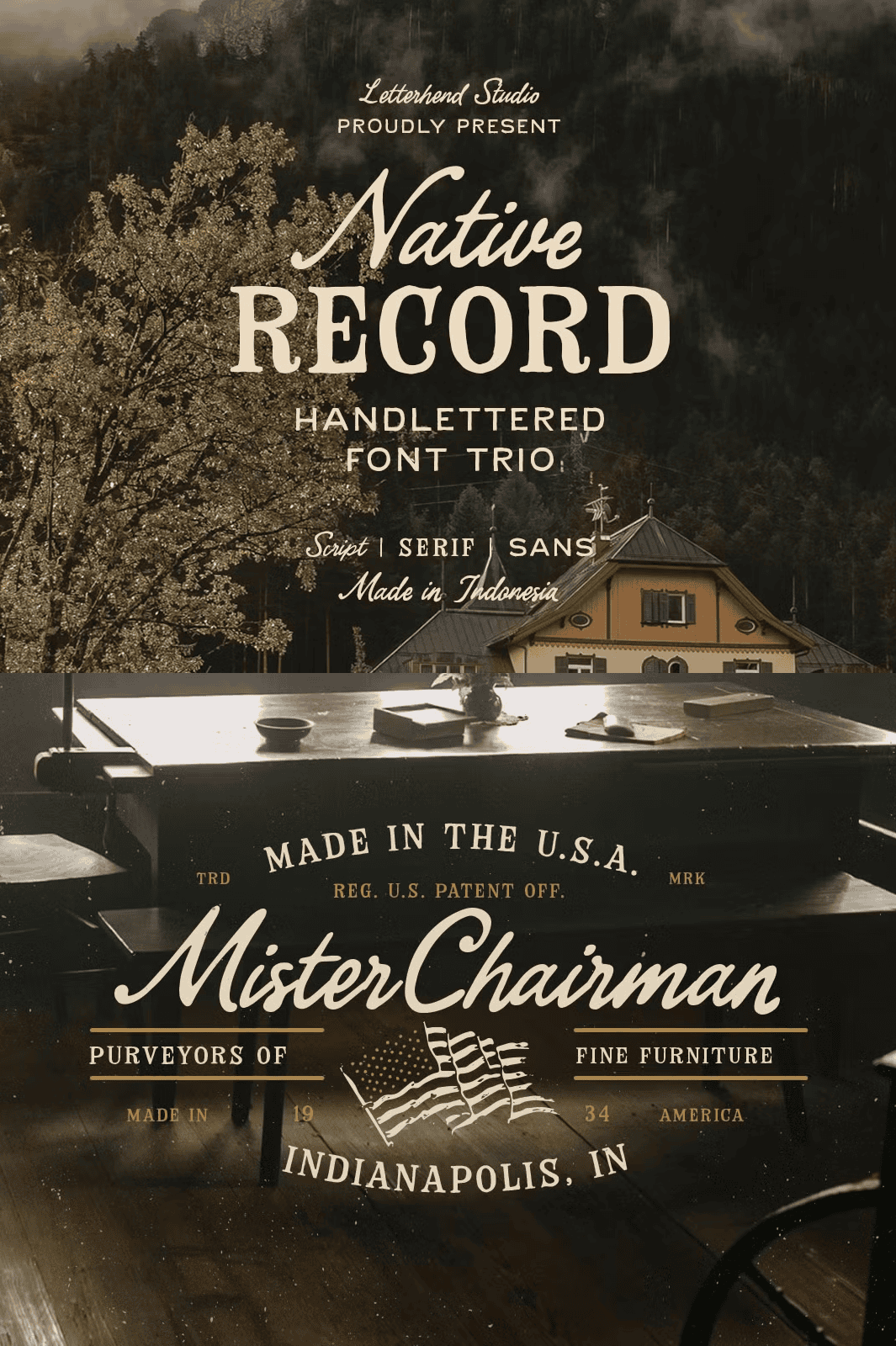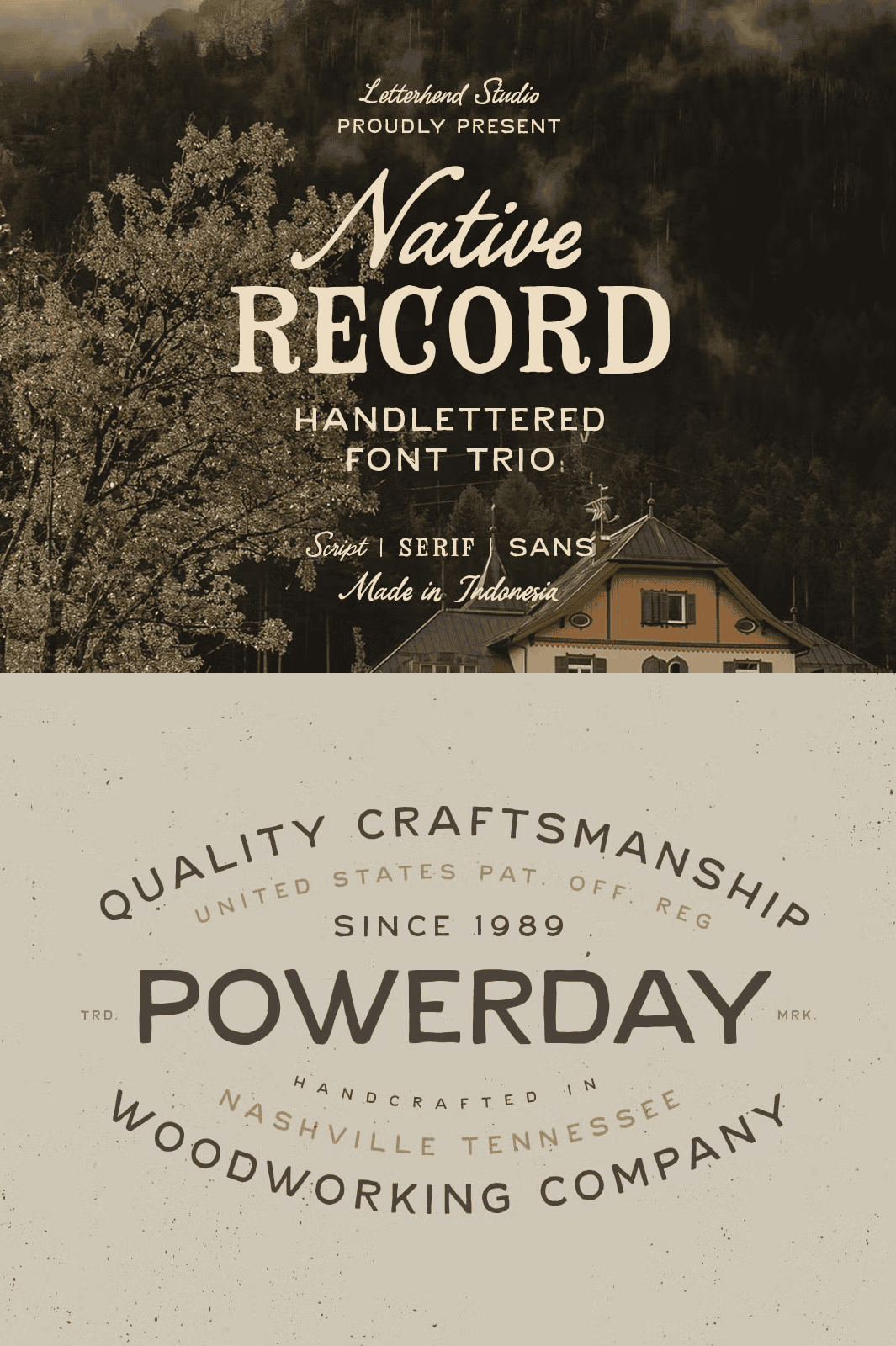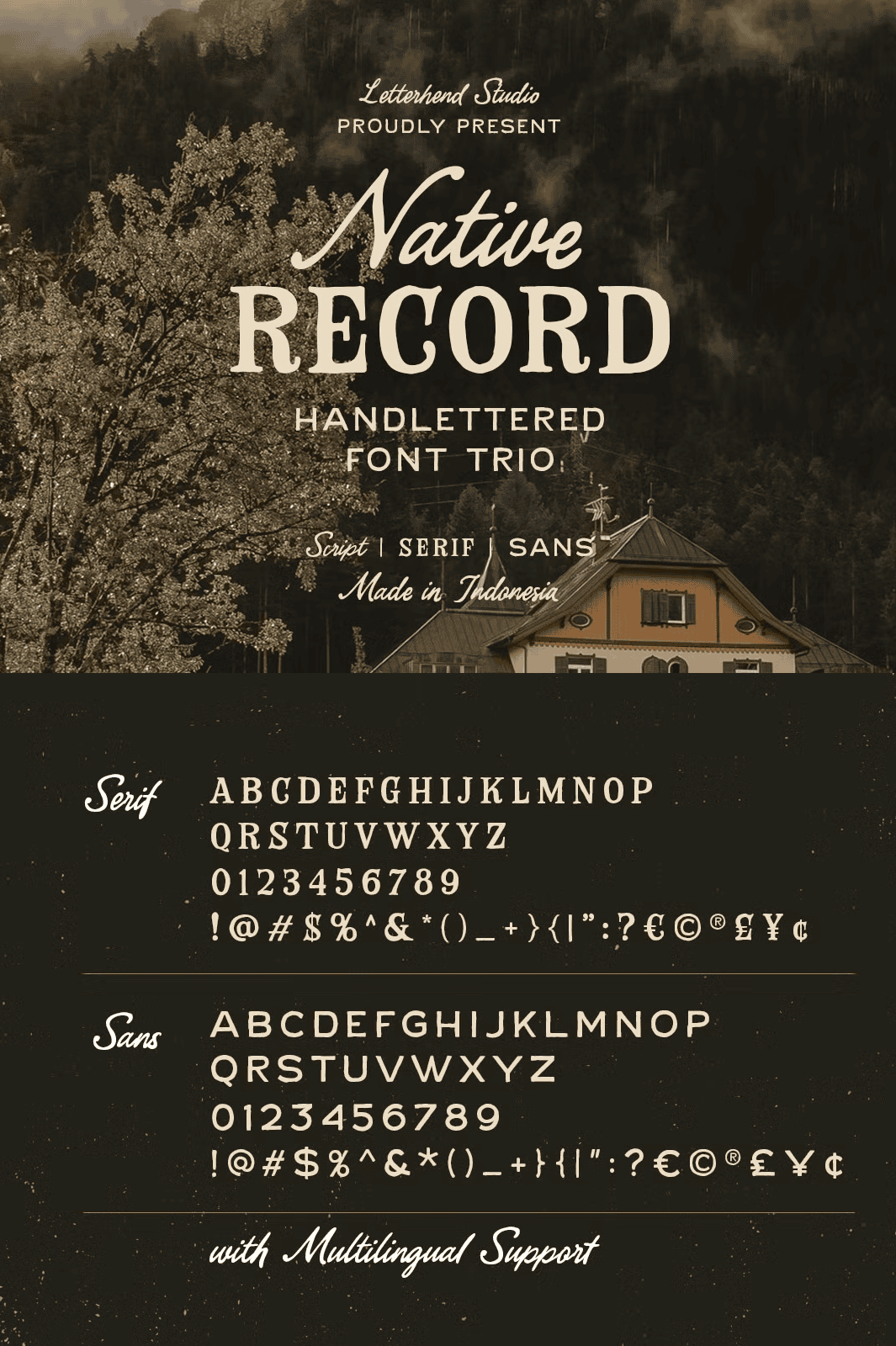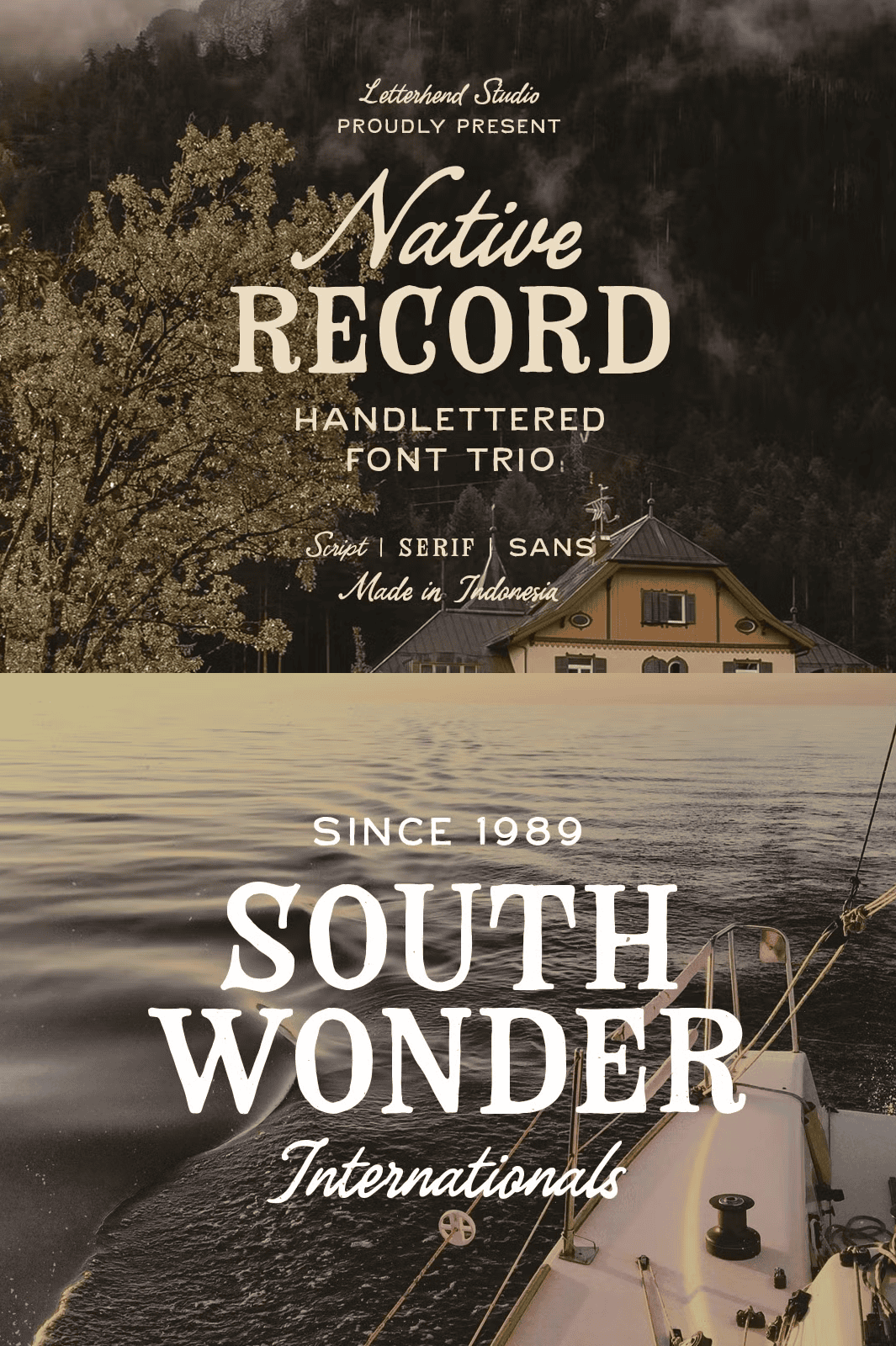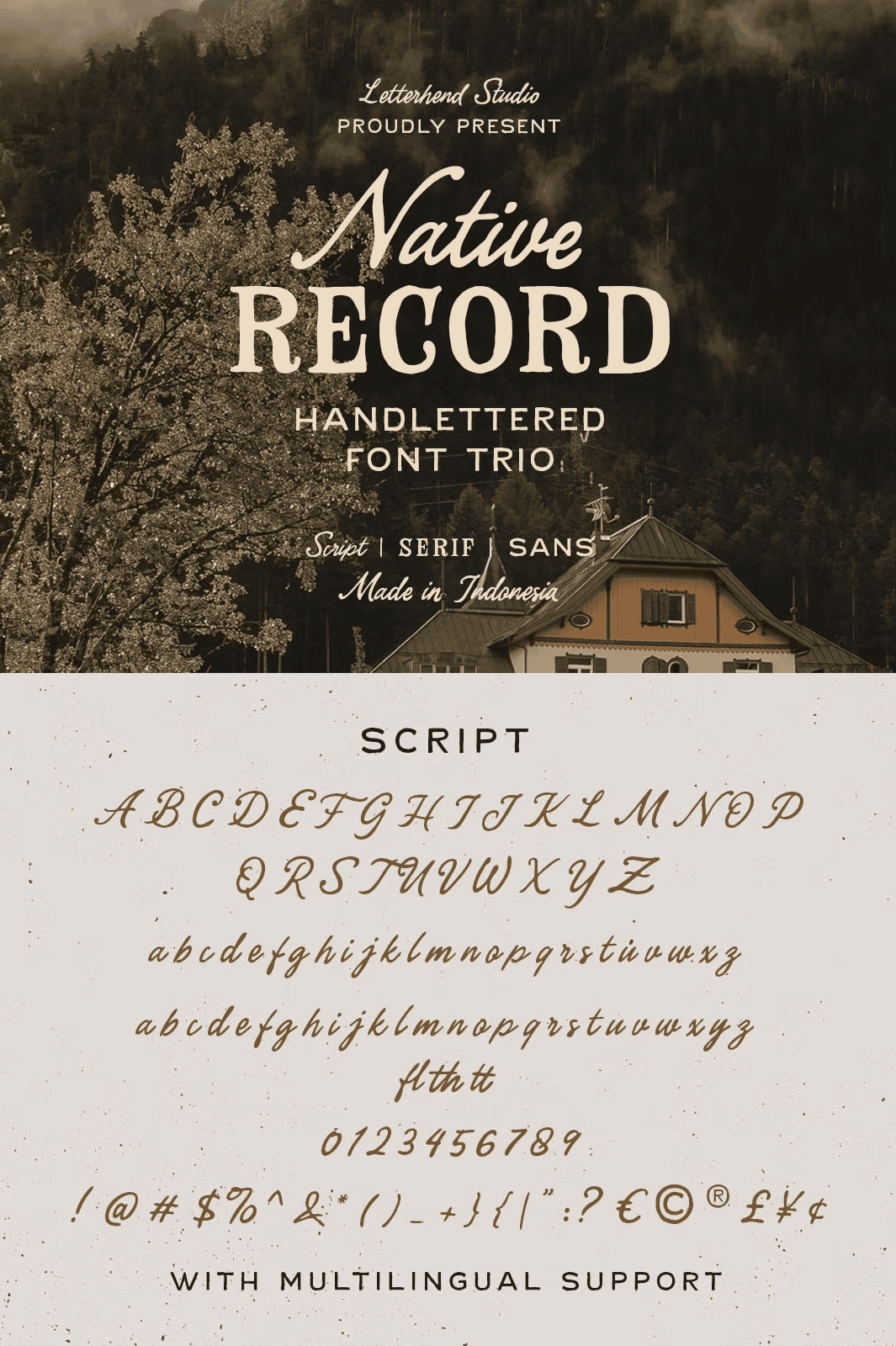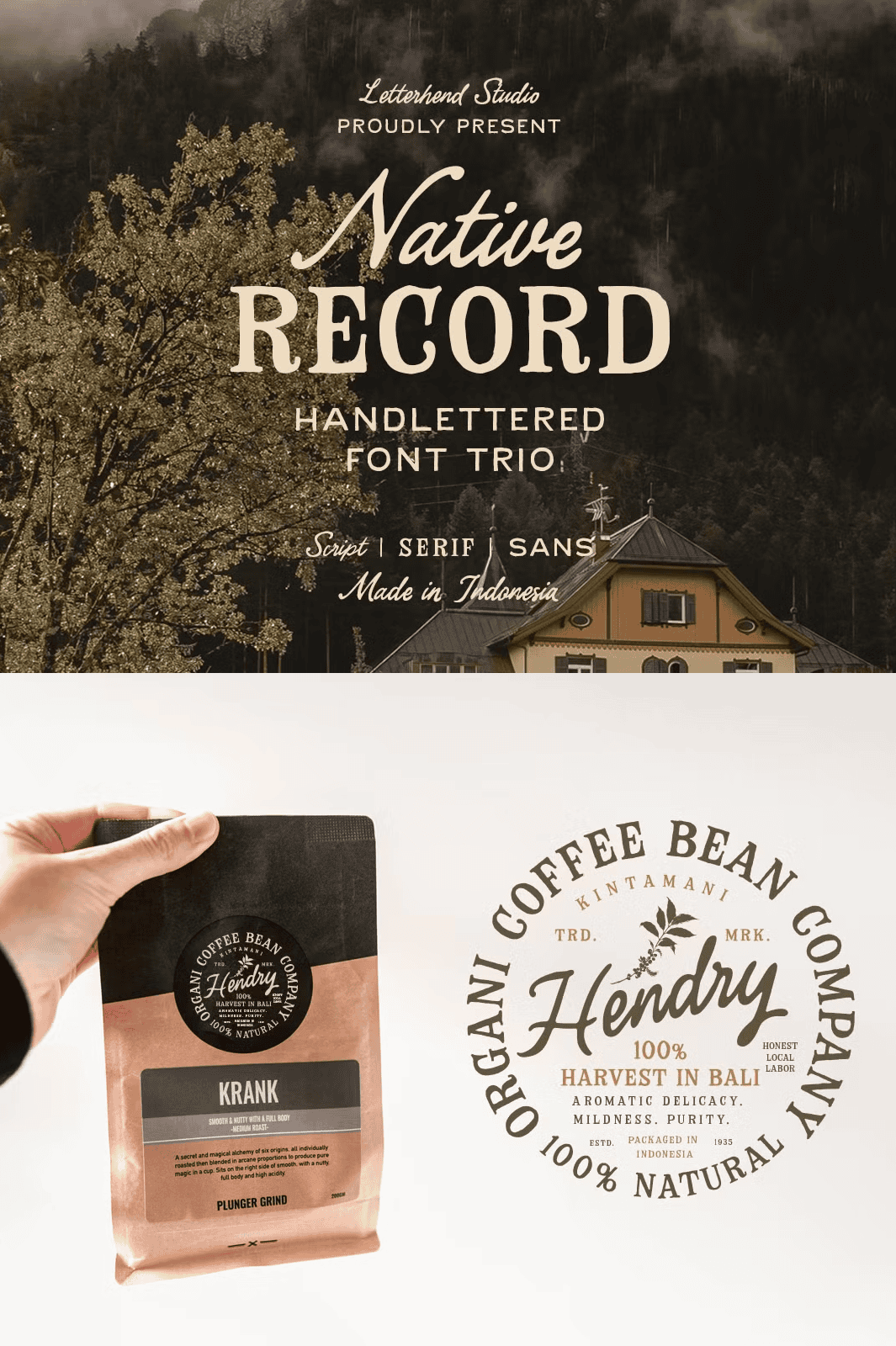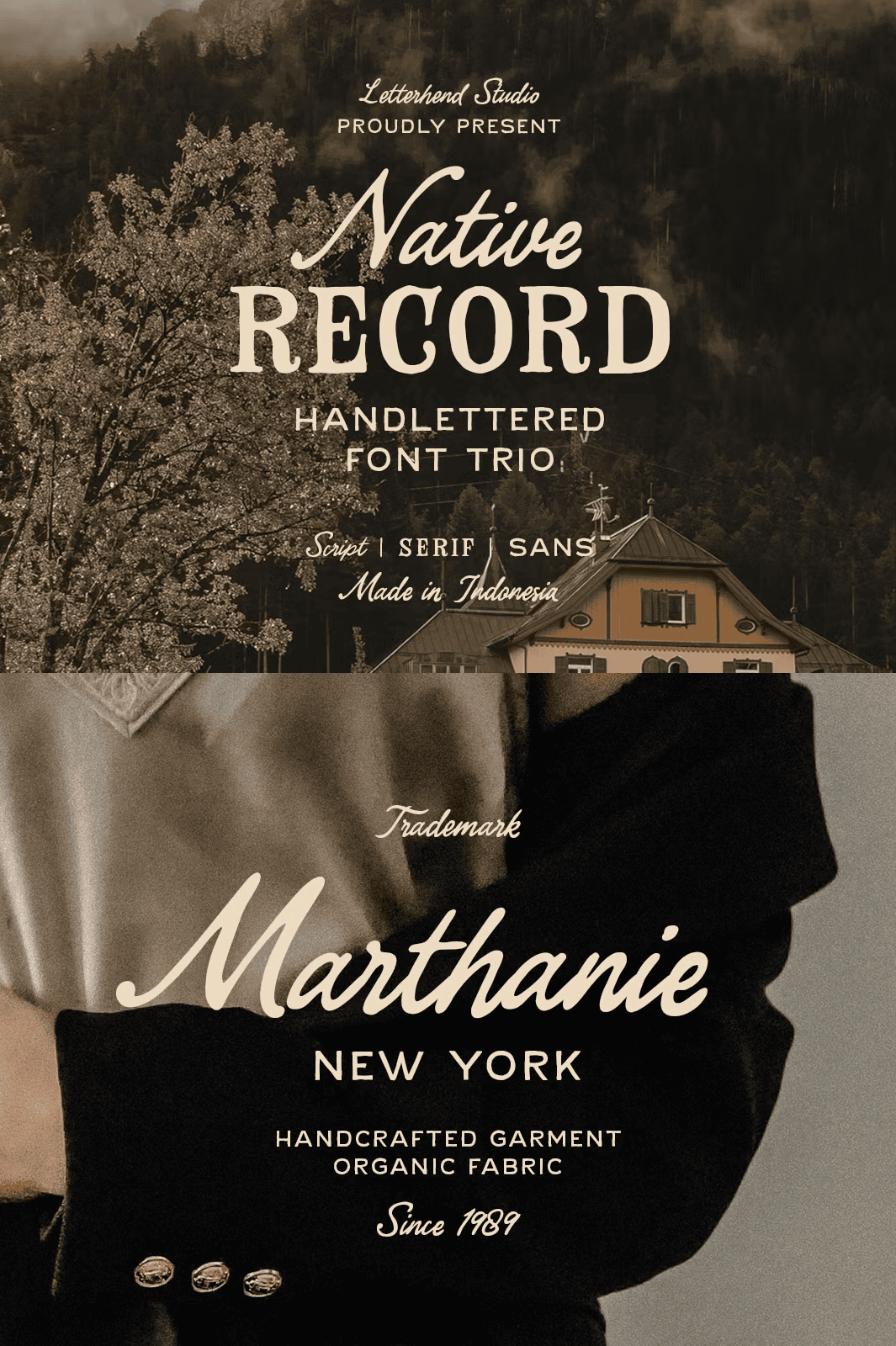
Unveil the Native Record Font Trio: Where Vintage Craftsmanship Meets Modern Design
Step into a world where design feels alive, personal, and deeply authentic. The **Native Record Font Trio** is not just a collection of typefaces — it’s a complete typographic narrative rooted in the warmth of handcrafted lettering and the quiet elegance of old-time typography. This versatile trio — comprising a bold **sans**, a refined **serif**, and a poetic **script** — was meticulously designed to fuel both traditional and contemporary creative projects with soul, character, and storytelling power.
Whether you’re building a brand identity, crafting editorial layouts, designing packaging, or creating social media content, the Native Record Font Trio delivers a harmonious blend of strength, grace, and personality that no generic font can replicate.
Elevate Your Typography with Rich, Functional Features
This is more than a font — it’s a complete toolkit for serious designers. Each member of the Native Record trio comes packed with advanced typographic features to maximize your creative control:
– ✅ **Full uppercase and lowercase support** — craft complete, natural-looking text with precision
– ✅ **Comprehensive numbers and punctuation** — ideal for addresses, quotes, dates, and formal copy
– ✅ **Multiple alternates and ligatures** — reduce visual repetition and add expressive variation
– ✅ **Multilingual character support** — seamlessly work with European, Latin, and extended language sets
– ✅ **PUA-encoded glyphs** — guarantee access to all special characters and decorative elements
With these capabilities, you’re not just typing — you’re designing.
Use It Anywhere — From Branding to Digital Storytelling
Leverage the power of the Native Record trio across diverse creative domains:
– Build **authentic brand identities** for farm-to-table cafes, boutique studios, and heritage-focused businesses
– Design **editorial spreads, book covers, and magazine layouts** with a timeless, narrative-rich style
– Create **eye-catching packaging and product labels** that stand out on crowded shelves
– Develop **social media templates, quotes, and digital illustrations** with a unique handwritten charm
– Craft **wedding invites, stationery, and event programs** that feel personal and hand-designed
– Enhance **website headers and call-to-action elements** with a warm, inviting personality
This font trio is engineered for designers who don’t just want to communicate — they want to connect.